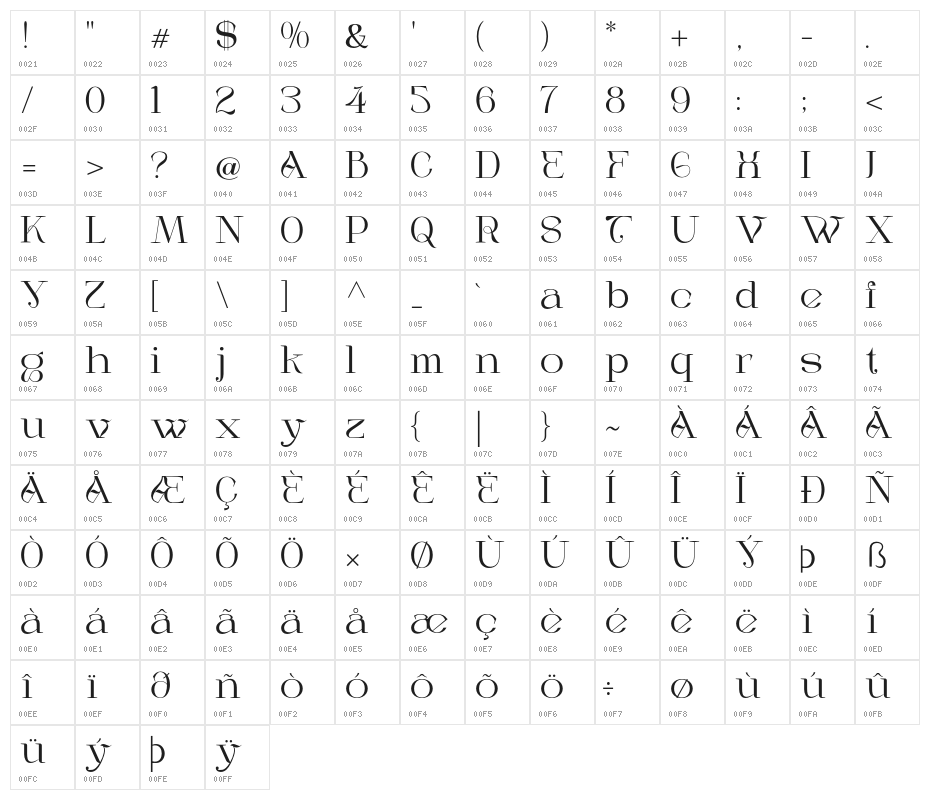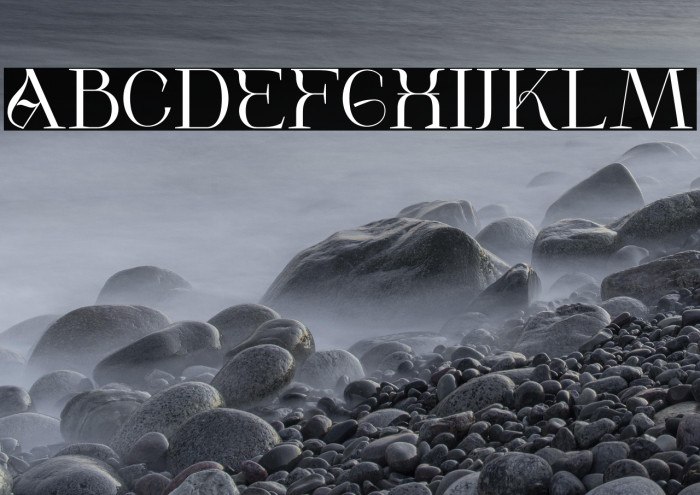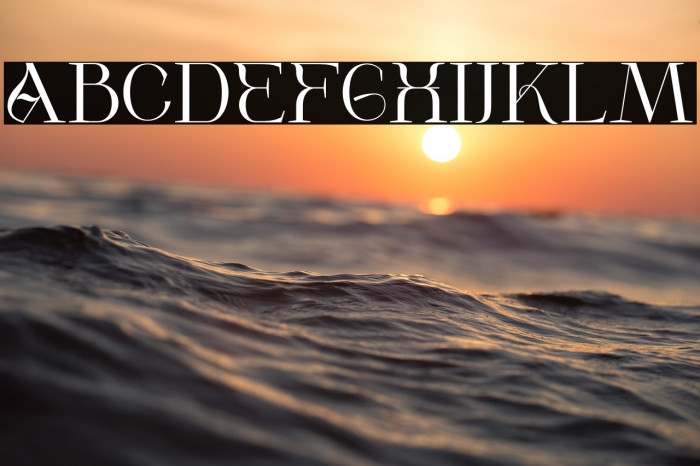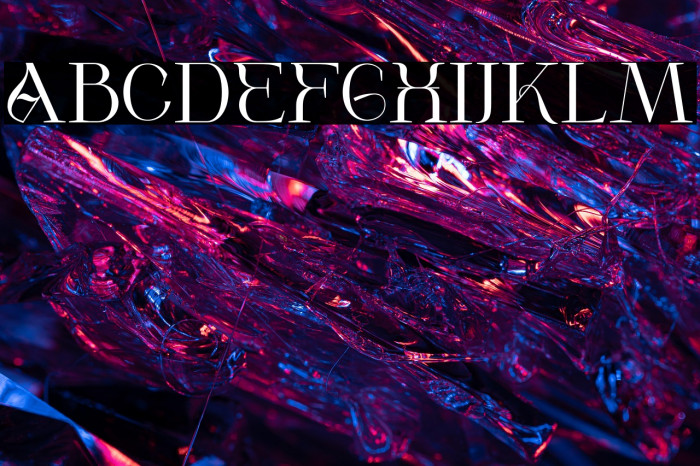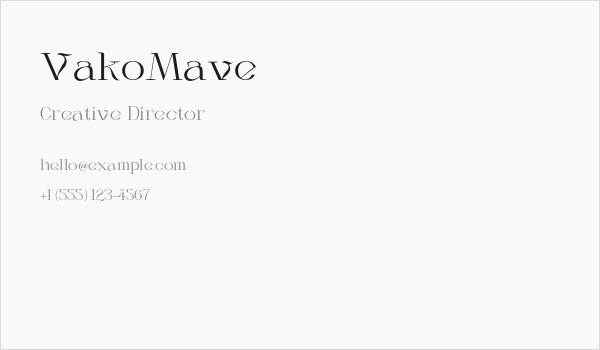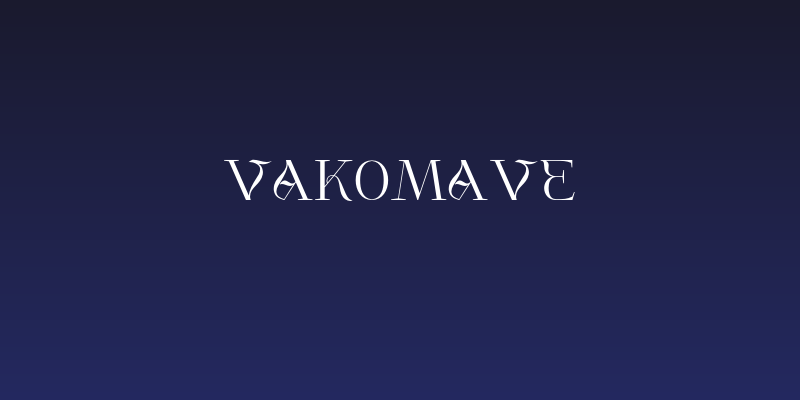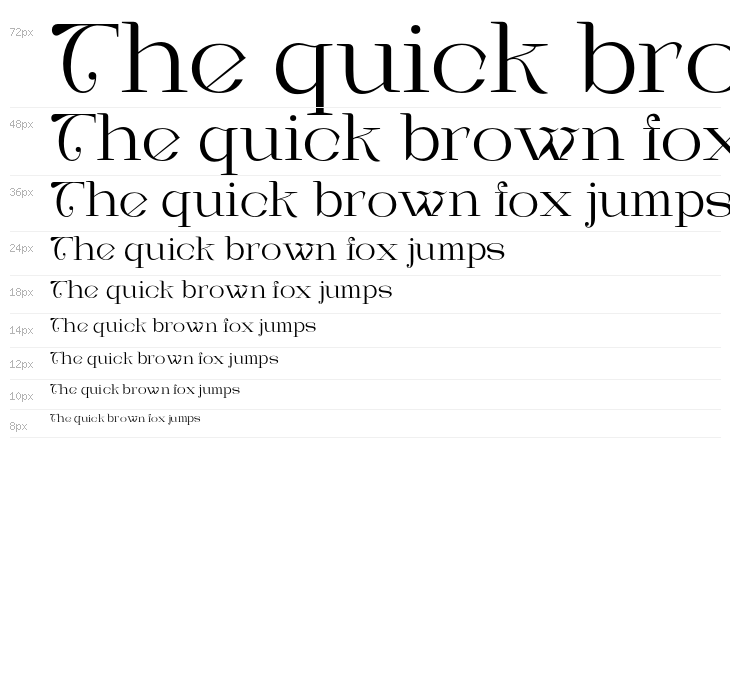
VakoMave Font
VakoMave Description
This font features a unique blend of modern and classic elements, characterized by its elegant and artistic flair. The uppercase letters exhibit a decorative style with distinct curves and sharp angles, creating a sophisticated appearance. The lowercase letters maintain a more traditional serif structure, providing a balanced contrast to the ornate uppercase. The numerals are bold and slightly condensed, ensuring readability while maintaining the font's artistic essence. Special characters are crafted with the same attention to detail, enhancing the font's versatility. Overall, this font combines elegance with a touch of modernity, making it suitable for a variety of creative applications.
| Proposed Projects | Ideal for branding, invitations, editorial design, and artistic projects that require a touch of elegance and sophistication. |